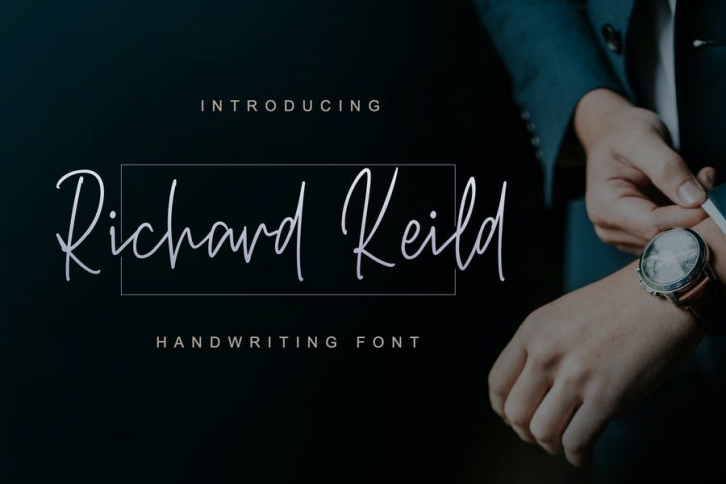
Introducing a new Handwritting font called Richard Keild. Richard Keild good for signature logo, wedding invitation, romantic quote, logotype, poster, social media kit, book cover, tshirt design, packaging and any more.